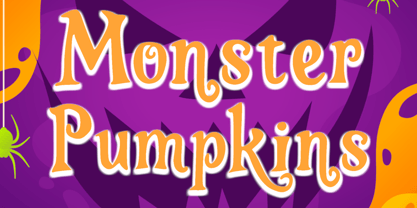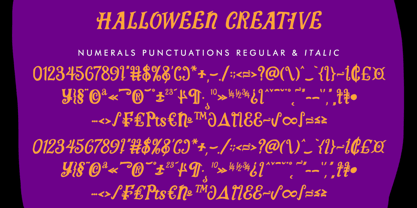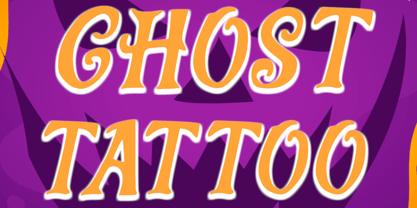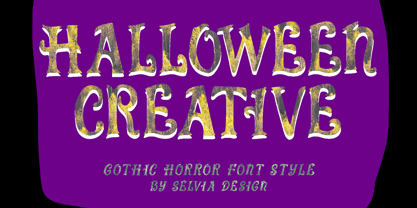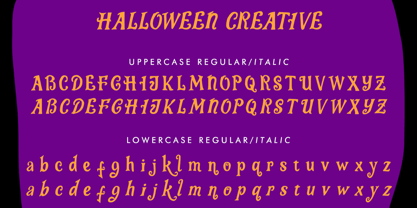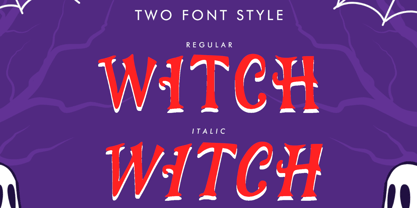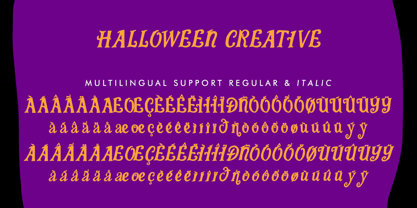
Halloween Creative Italic
by Selvia Design
The Halloween Creative Italic Font Family was designed by Selvia Cahya and published by Selvia Design. Halloween Creative Italic contains 2 styles and family package options. More about this family
"Halloween Creative" is a unique and elegant display font. It features uppercase and lowercase letters, numerals, punctuation, and multilingual support. It's perfect for Halloween, horror movie titles, horror book titles, Christmas, comics, music concerts, invitations, banners, posters, holidays, New Year, cartoons, social media, gifts, Santa Claus, and more.